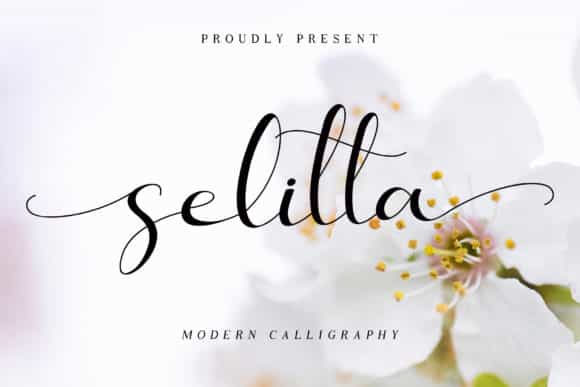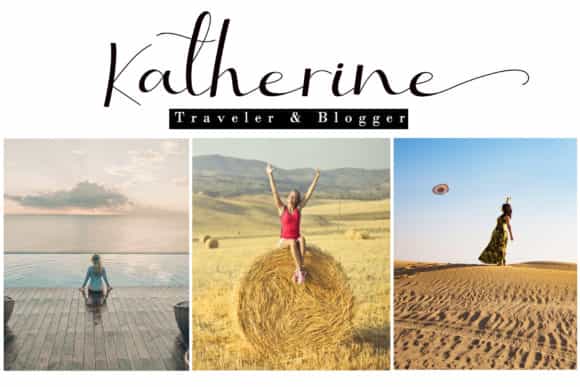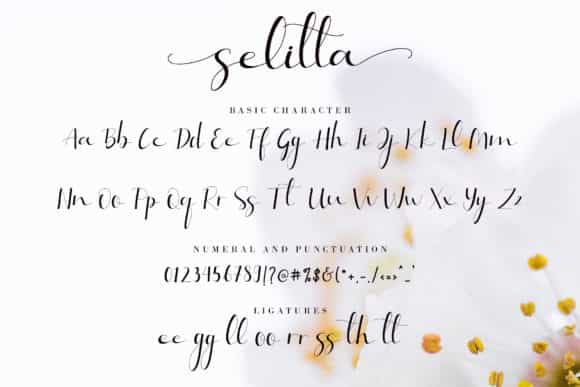
Selitta is a gorgeous calligraphy font designed with a touch of romance. It has a myriad of ligatures that look natural within its OpenType features, making the font appear like handwriting that is as authentic as it is possible. This collection of scripts are ideal to use for personal branding.